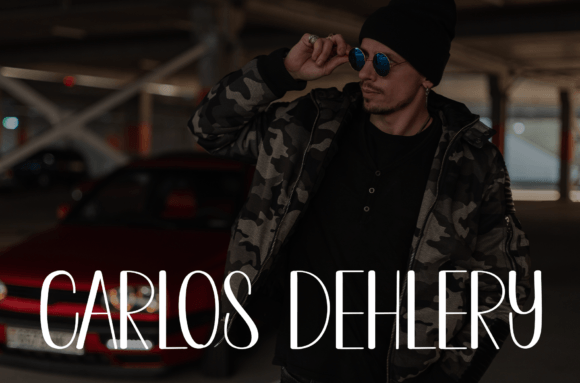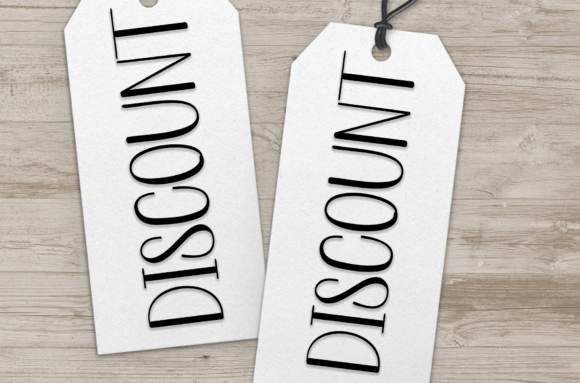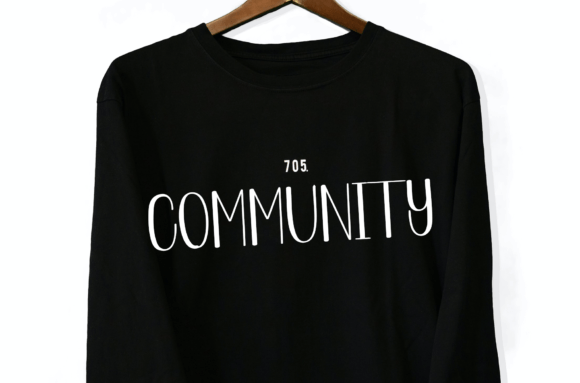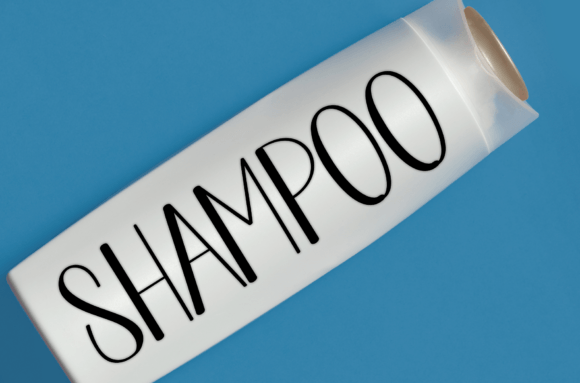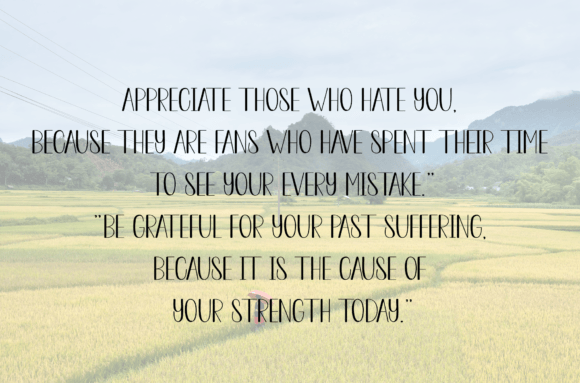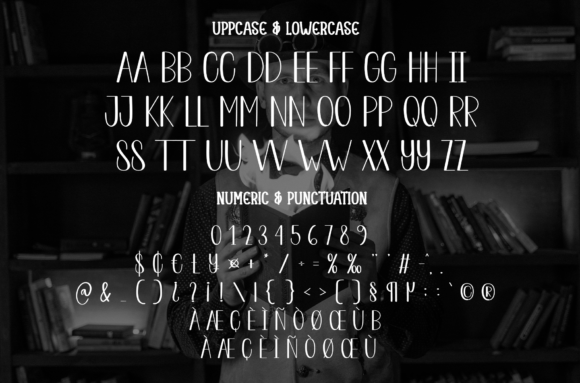
Introduction to Illusion Magic Font
As a designer, there’s nothing quite like the rush of bringing a creative project to life. You’ve spent hours pouring over sketches, tweaking colors, and refining typography – and then, suddenly, it all comes together in a beautiful, cohesive piece. But what about when you need that extra special touch to make your design truly stand out? That’s where the Illusion Magic Font comes in, adding a sweet and friendly handwritten flair to any project.
Whether you’re crafting wedding invitations, designing cards, or working on a larger design project, the Illusion Magic Font is a valuable resource to have in your toolkit. Its high quality and versatility make it an ideal choice for designers looking to add a fun and creative touch to their work.
Key Features of Illusion Magic Font
- High-quality design resource ideal for creative projects, such as graphic design, digital art, and typography.
- Includes a range of glyphs and characters, making it suitable for use in a variety of languages and contexts.
- Designed with a unique, magical aesthetic, setting it apart from more generic font styles and adding a touch of fantasy to creative projects.
Honest Review: Illusion Magic Font
I recently stumbled upon the Illusion Magic Font and was excited to see how it would elevate my creative project. After a thorough review, I’m sharing my thoughts on this design resource.
- ✨ Unique, whimsical design that adds a touch of magic to any project.
- ✨ High-quality font that’s perfect for creating eye-catching headings and titles.
- ⚠️ Limited character set, which might be a challenge for longer texts.
- ⚠️ Not suitable for small font sizes, as it can become difficult to read.